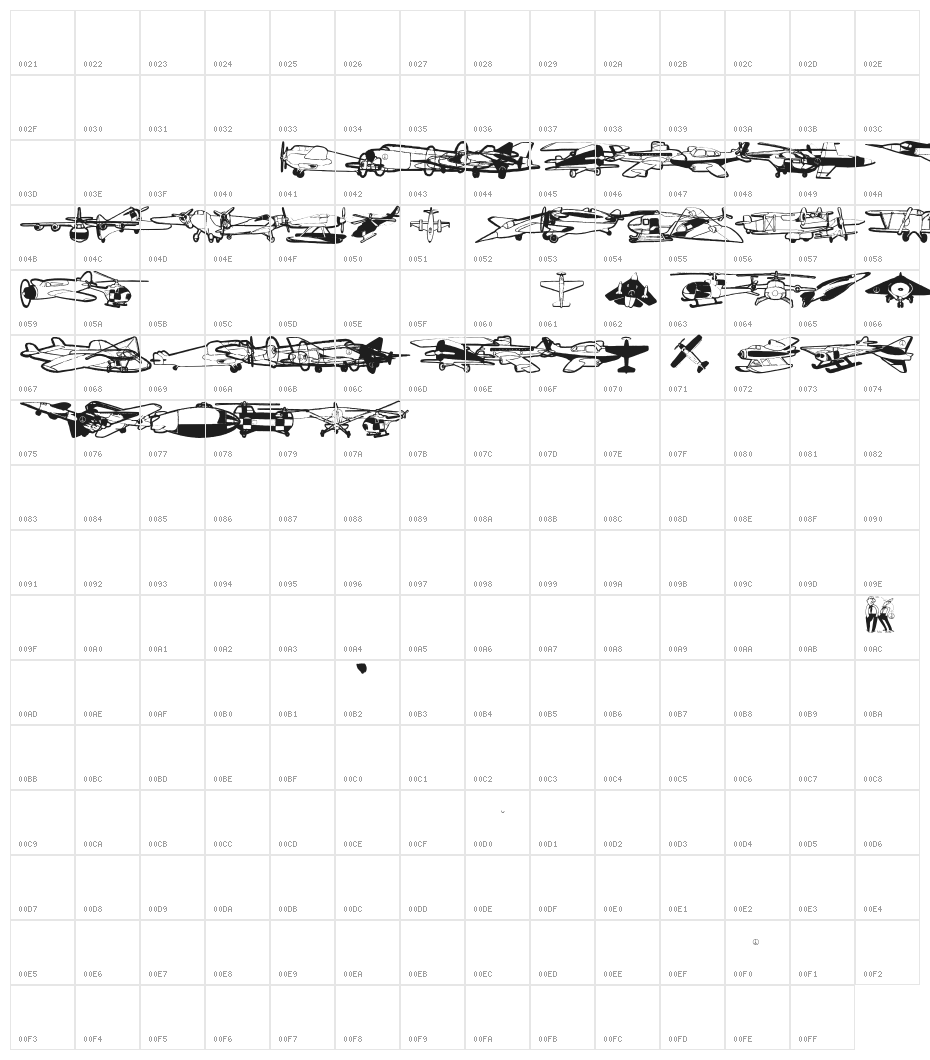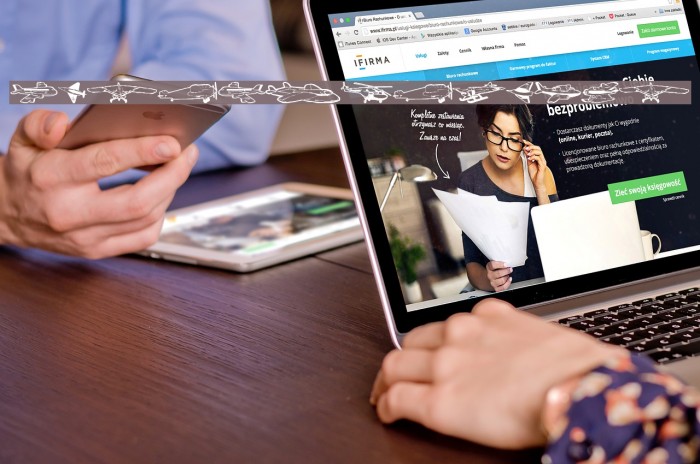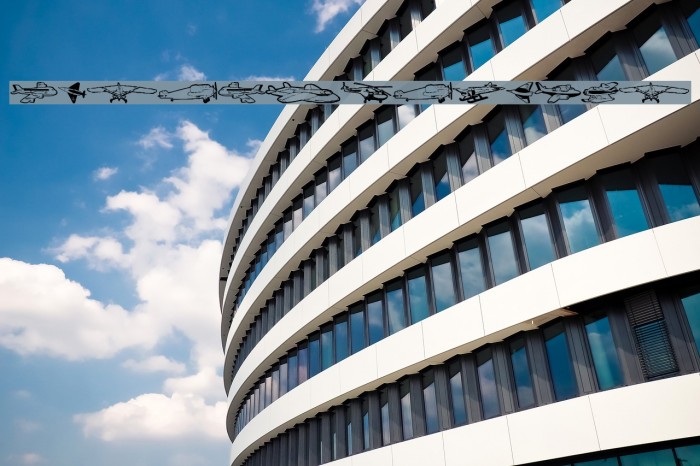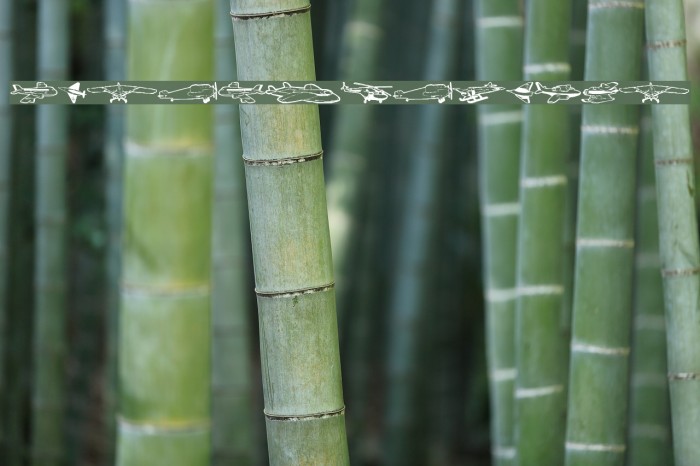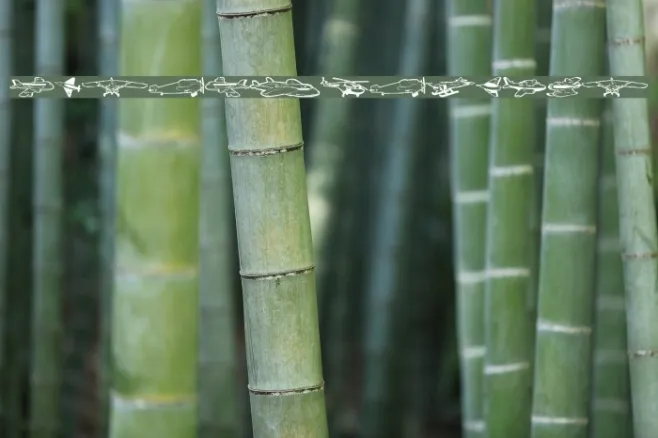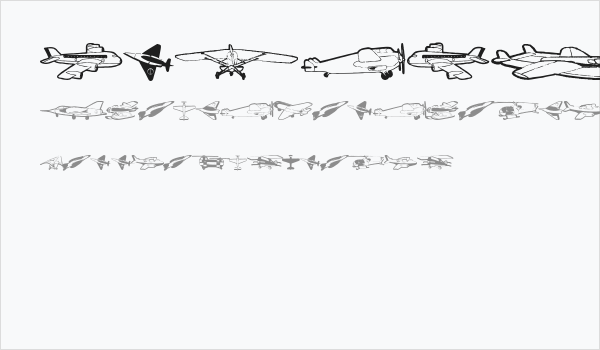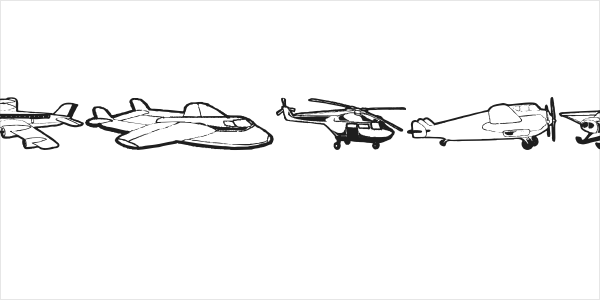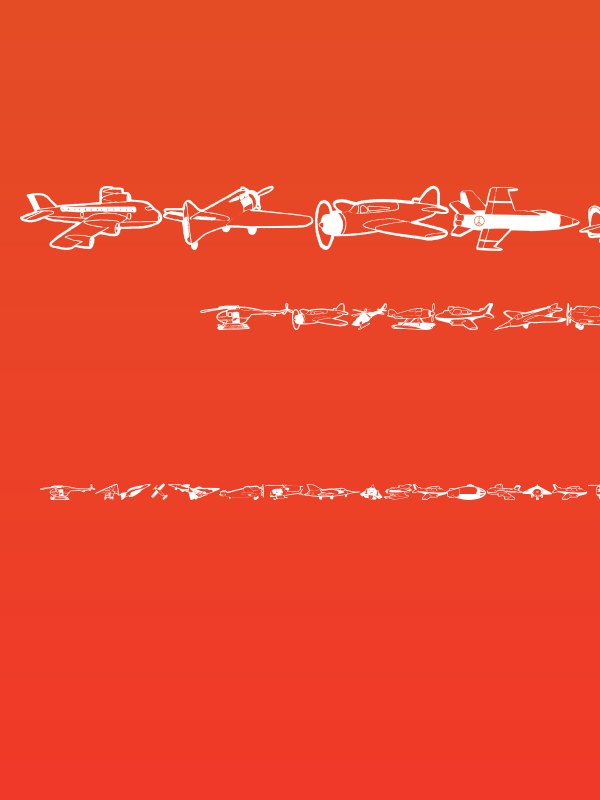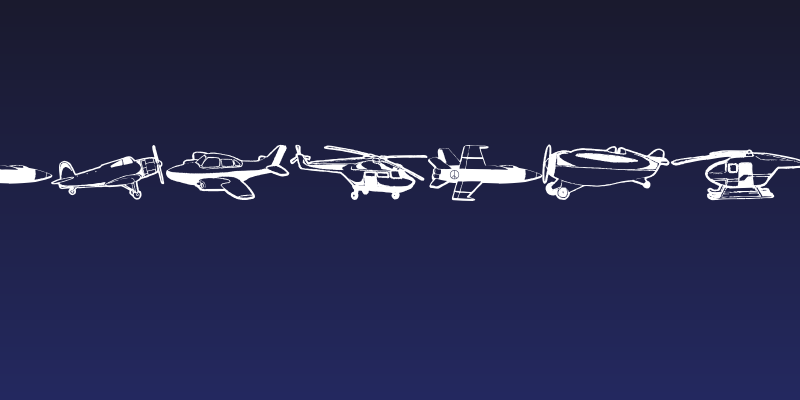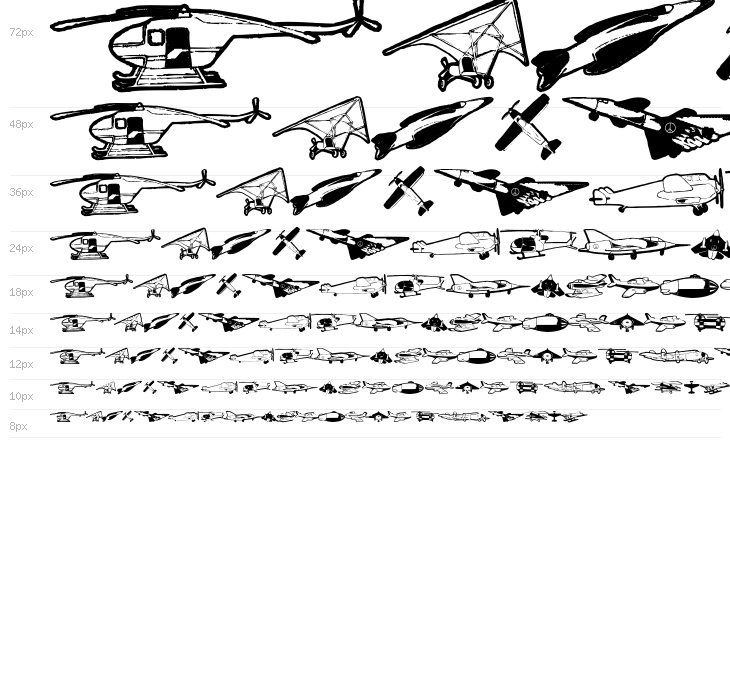
FlyingHistory Font
FlyingHistory Description
A decorative font composed of detailed outline illustrations of various historical aircraft, each character represented by a unique airplane or flying machine silhouette. The glyphs are highly pictorial, with clear line work and distinct shapes for each aircraft.
| Overall Style | Decorative, Thematic, Illustrative |
| Use Case | Logos, Headlines, Themed graphics, Educational visuals |
| Proposed Projects | Aviation-themed posters, educational materials, museum displays, children's books, event flyers, novelty merchandise. |